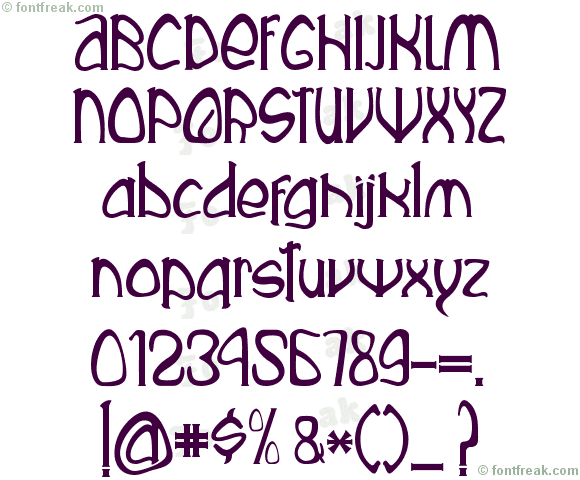
Rustika
Rustika, designed by Alberto Villanueva, is a striking display font that captures attention with its unique visual style. This font features a distinctive, handcrafted aesthetic, characterized by irregular stroke weights and a playful, organic feel. The letterforms exhibit a moderate contrast, giving them an engaging and dynamic appearance. The spacing is thoughtfully designed to maintain legibility while allowing the font to express its artistic flair. Decorative elements, such as whimsical curves and unexpected angles, contribute to its charm, making it a standout choice for various creative projects.
With its bold and expressive nature, Rustika is perfect for a range of applications. It shines in wedding invitations, where its artistic flair can lend a personal touch to the most special occasions. Additionally, the font is well-suited for movie posters, capturing the viewer's attention and enhancing the overall design. Restaurant menus can also benefit from Rustika's unique character, providing an inviting and memorable visual that reflects the establishment's personality. Small business owners looking to establish a brand presence will find this font effective for logos and promotional materials, as it conveys a sense of creativity and originality. Furthermore, content creators seeking to add a distinctive element to their projects will appreciate Rustika's versatility and charm.
In a world filled with conventional fonts, Rustika stands out due to its unique blend of artistry and functionality. Its free availability as a freeware license makes it accessible to graphic designers, small business owners, and content creators alike. Whether you are looking to elevate a design or create something truly memorable, the Rustika font free download offers an exceptional opportunity to enhance your projects with a touch of creative flair. Embrace the artistic spirit of Rustika and let it inspire your next design endeavor.